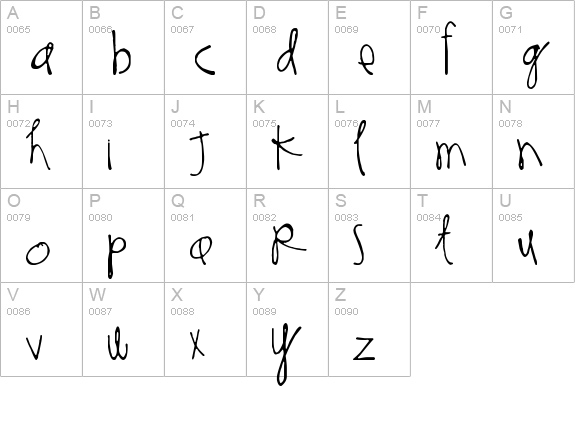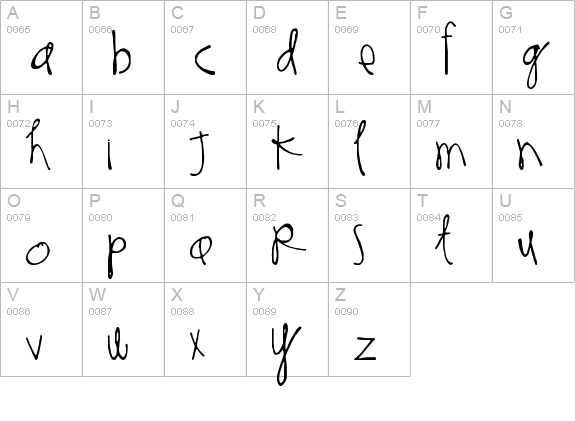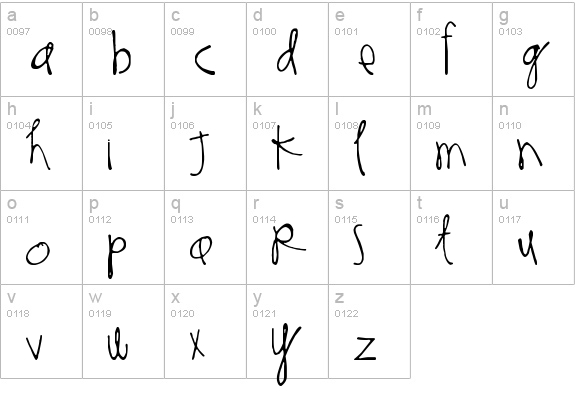
Introducing the charming and versatile Thinking of You font, a delightful typeface that exudes warmth and friendliness. With its unique hand-drawn style and playful curves, this font is perfect for adding a personal touch to your creative projects. Whether you're designing greeting cards, invitations, or social media graphics, Thinking of You font will surely make your text stand out. The best part? Thinking of You font is completely free for personal and commercial use. You can easily download this font at FontsMarket.com and start using it in your projects right away. So why wait? Add a touch of whimsy and creativity to your designs with the delightful Thinking of You font today!